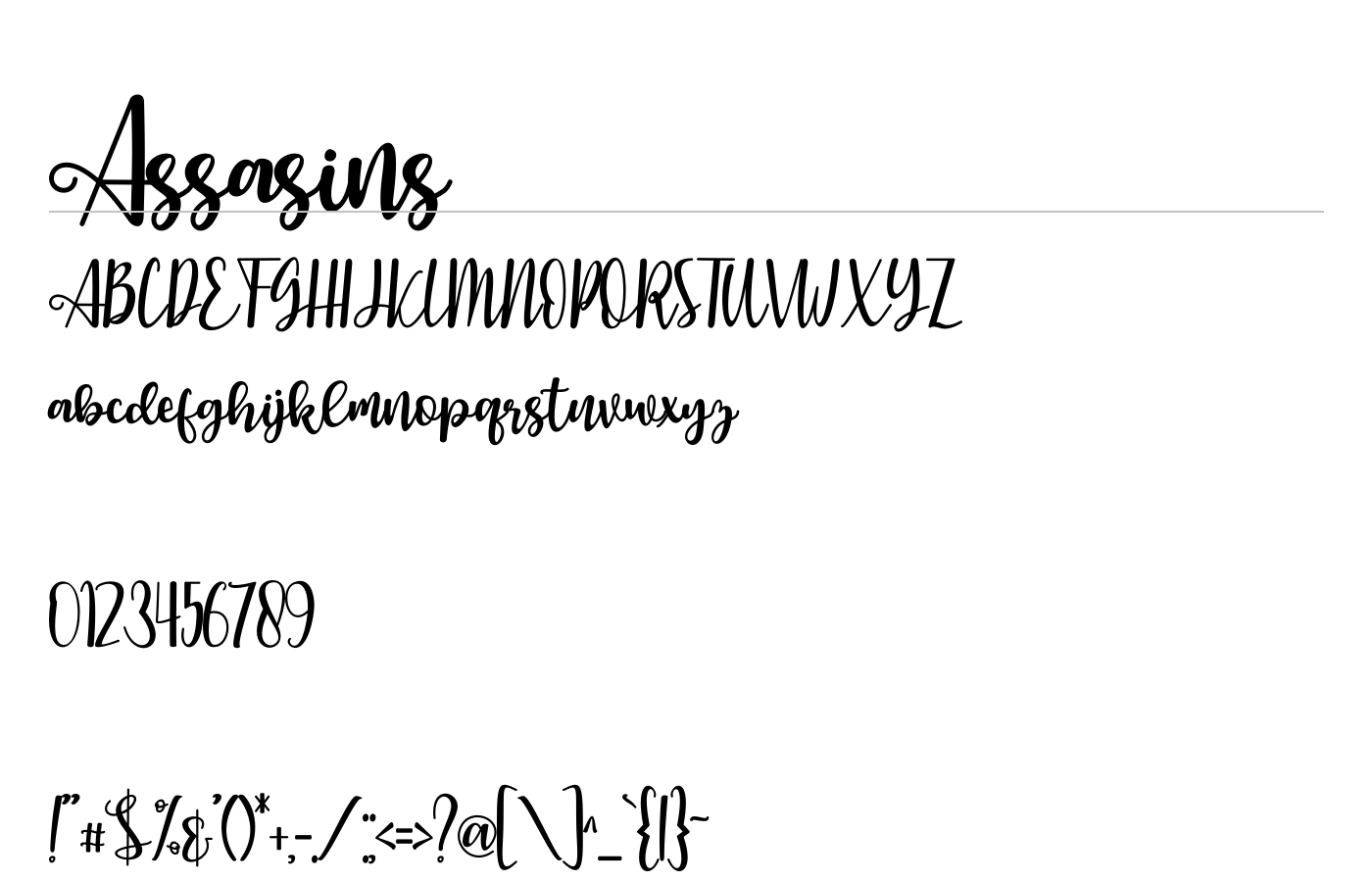
Assasins Font is a stylish, cursive script with a playful yet elegant feel, featuring smooth, flowing strokes and a medium weight that balances readability with charm. Its tall, slender letterforms and unique swashes make it perfect for creative branding, invitations, and eye-catching headlines where a personal, handcrafted touch is desired. This font works well in designs that seek to convey warmth, creativity, and sophistication.
Assasins Font
About Assasins Font
| Font family | Assasins Font |
| Designer | Arief Tri Sulistiyono |